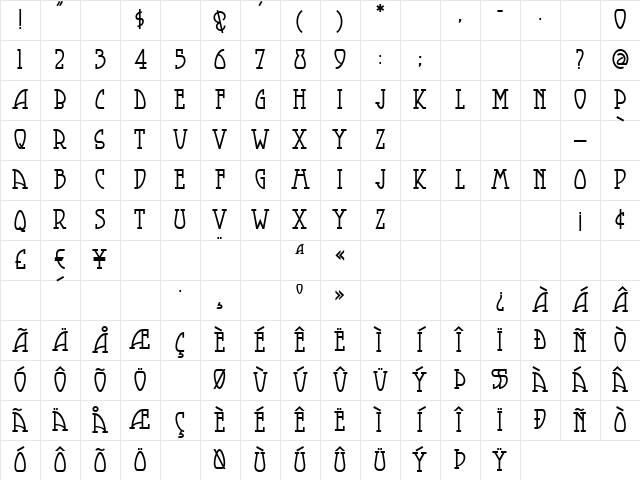
SmorgasbordNF Regular
Foundry: Nick's Fonts
Designer: Nick Curtis
Design Context for SmorgasbordNF
SmorgasbordNF is a composed and adaptable typeface that performs quietly and consistently across a wide range of design contexts.